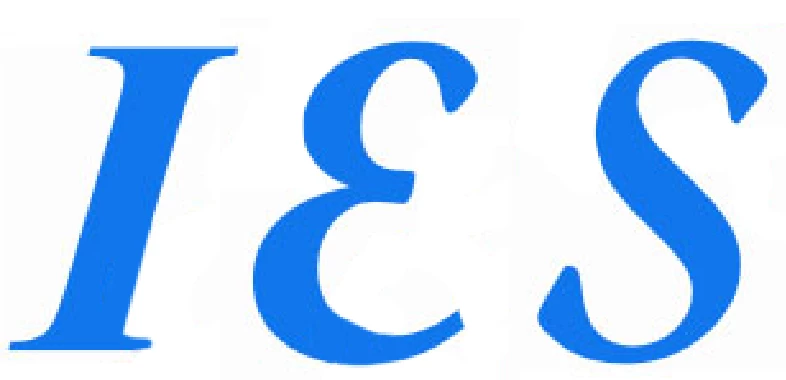
Indentify font
Can someone help indentify this font?
Hi @Allledgroup, that's an odd one, alright. The “E” and “S” look a little similar shape-wise to Wrexham Script Font, but the “I” doesn't. Perhaps it's a mashup or created uniquely. https://www.1001freefonts.com/wrexham-script.font